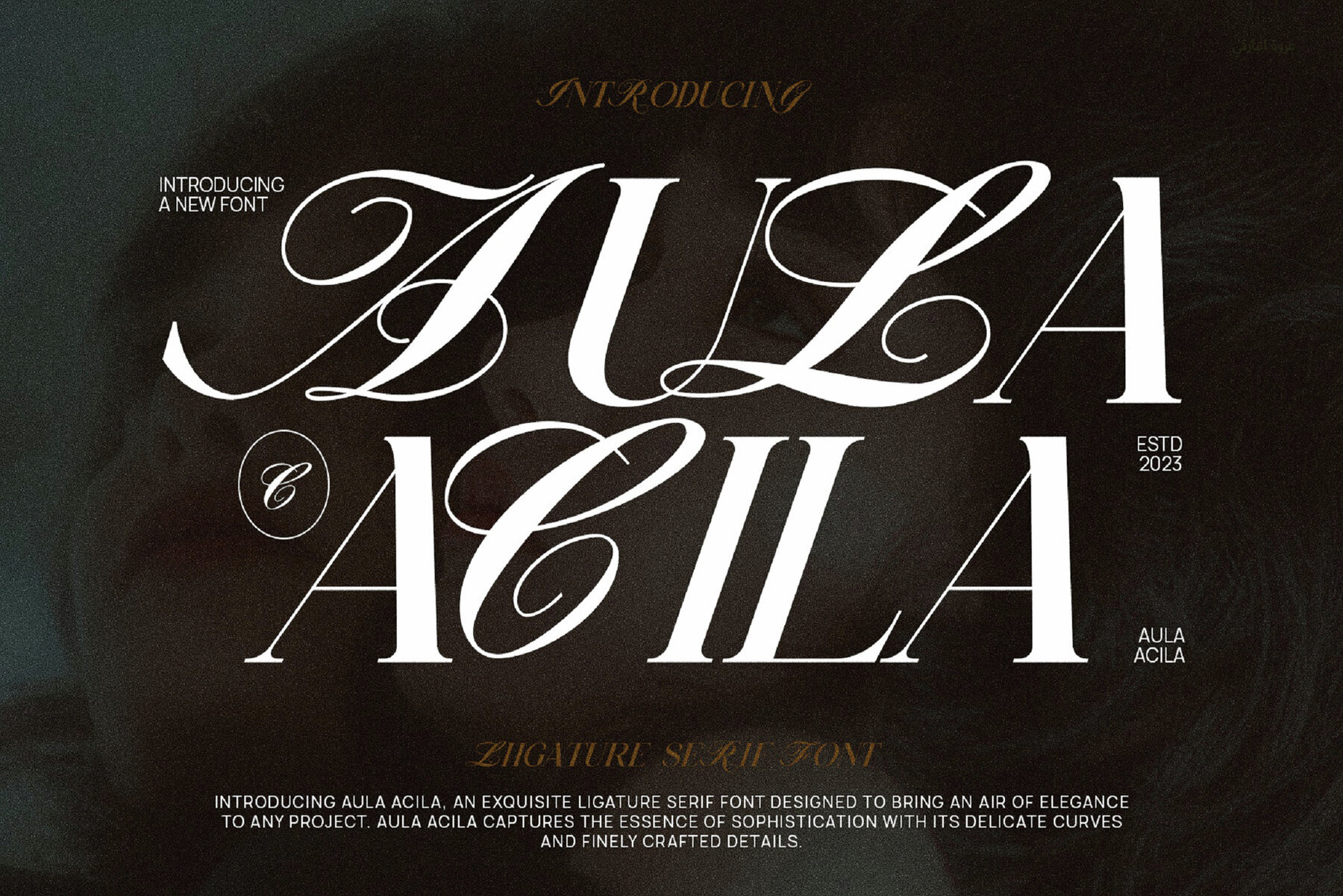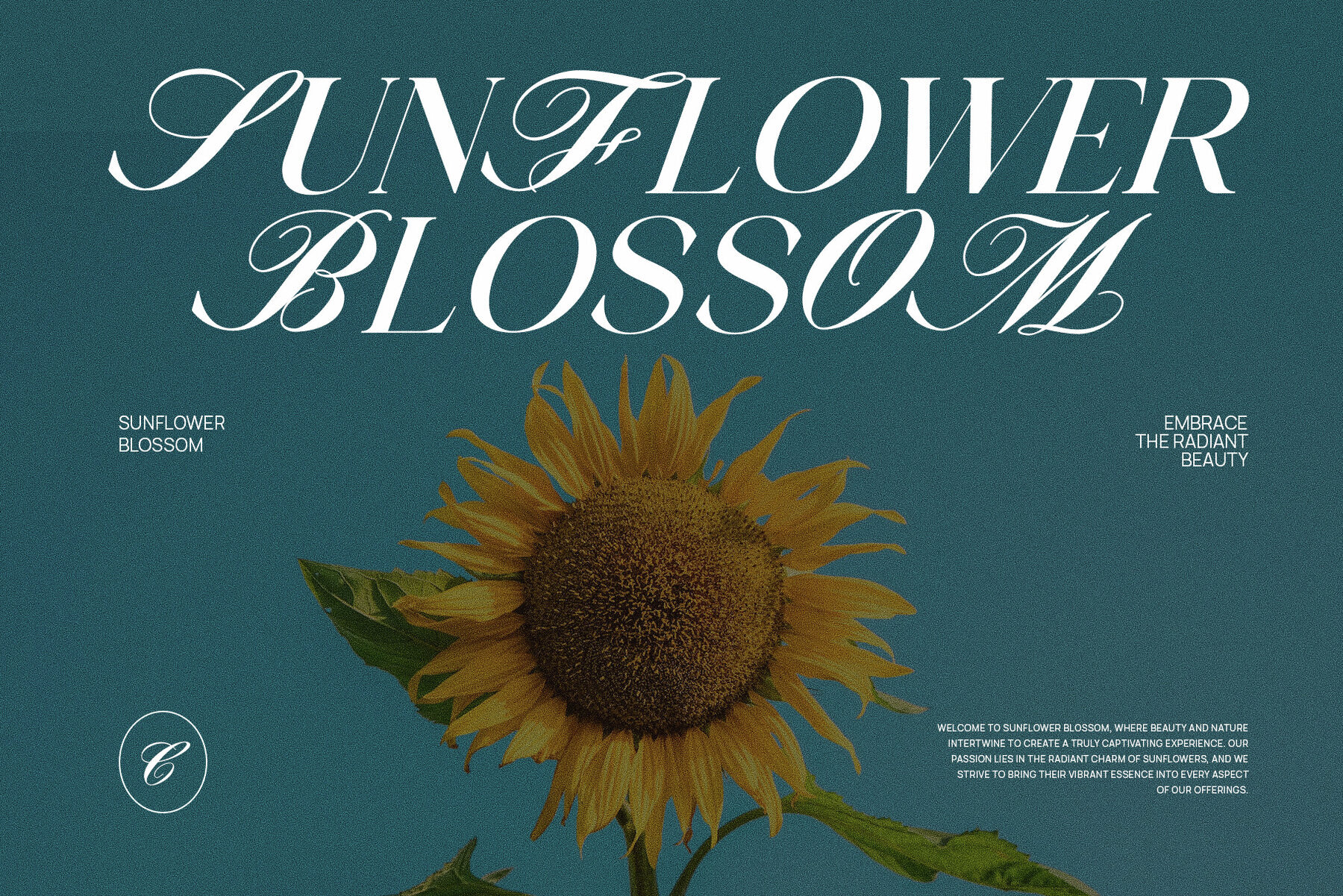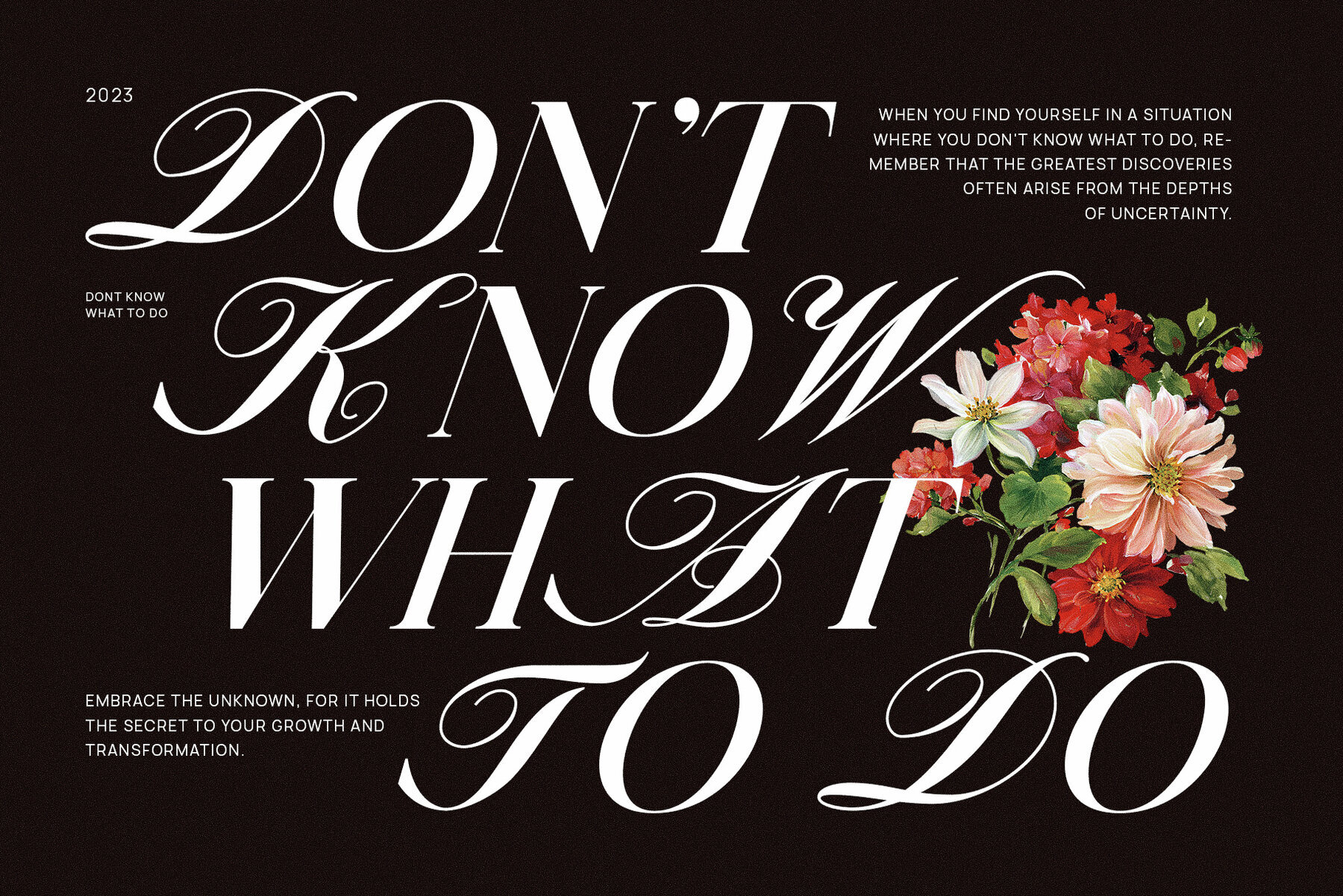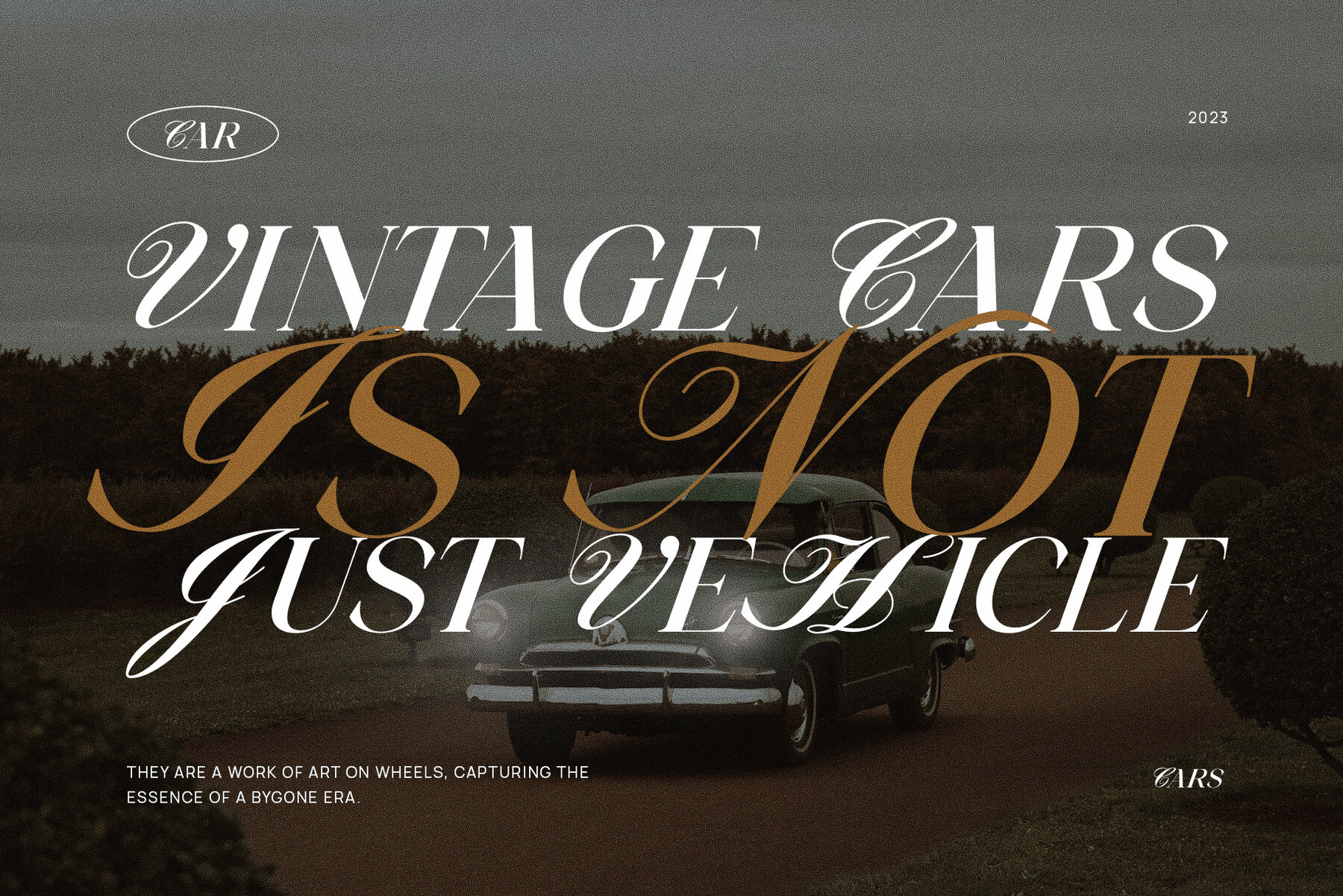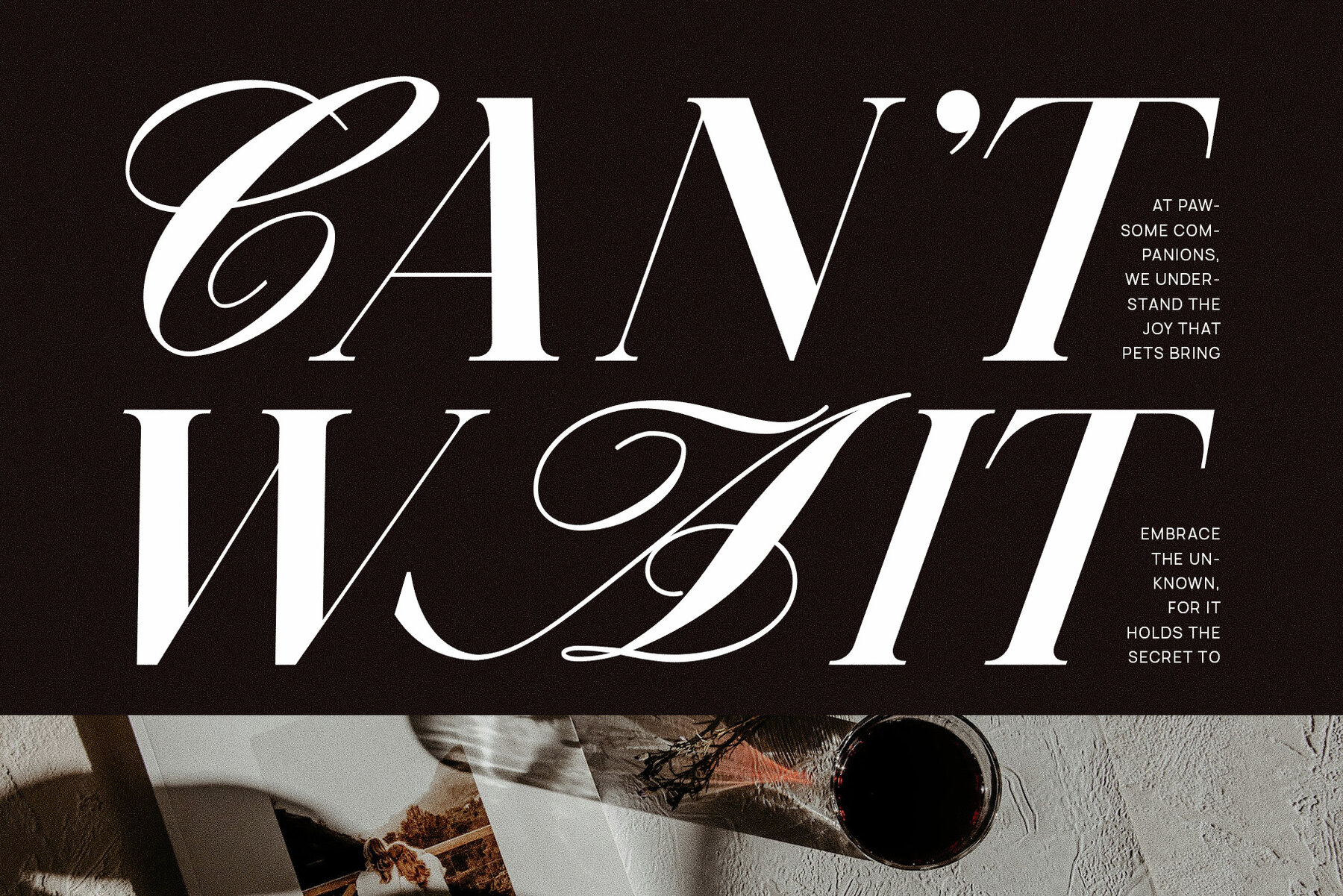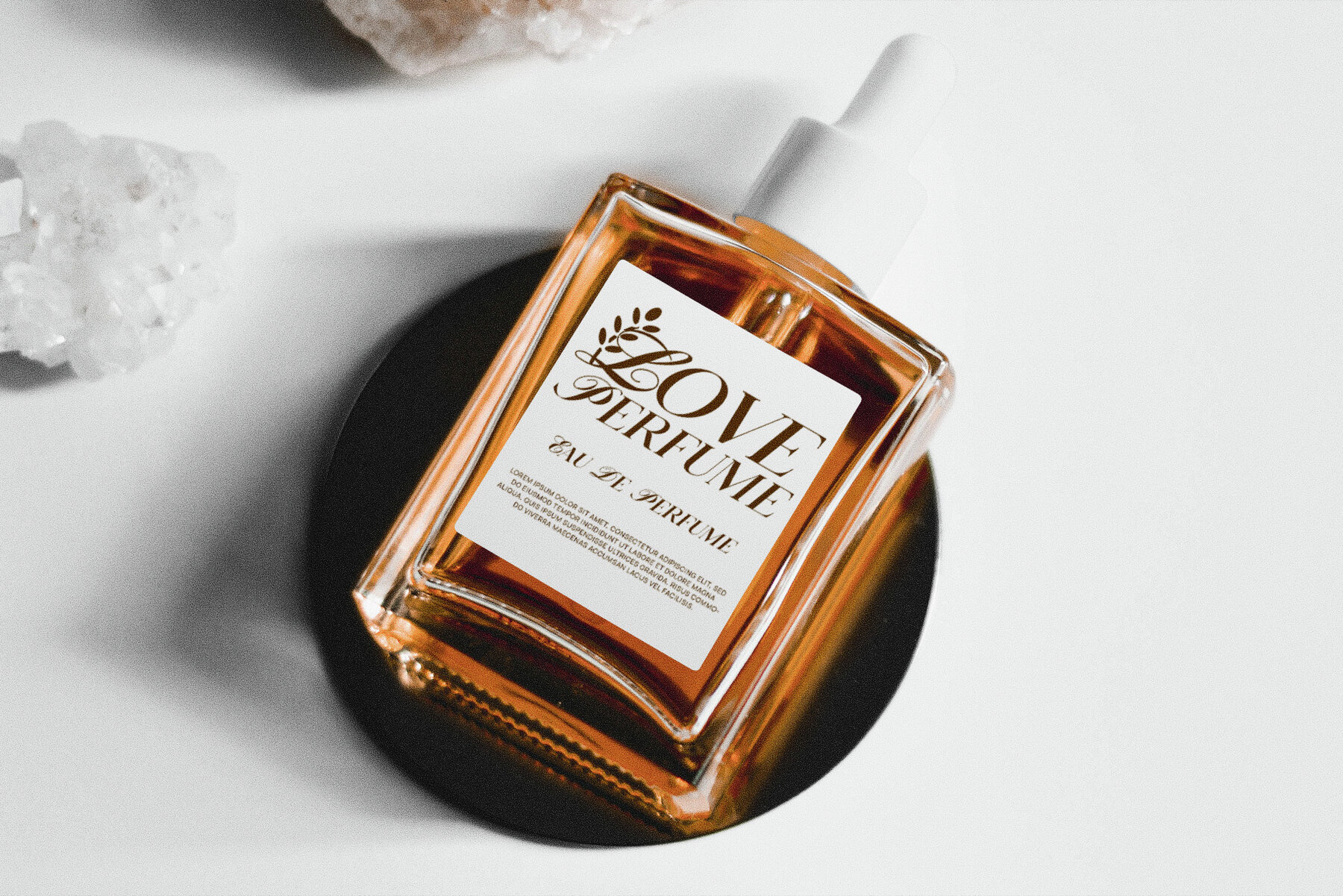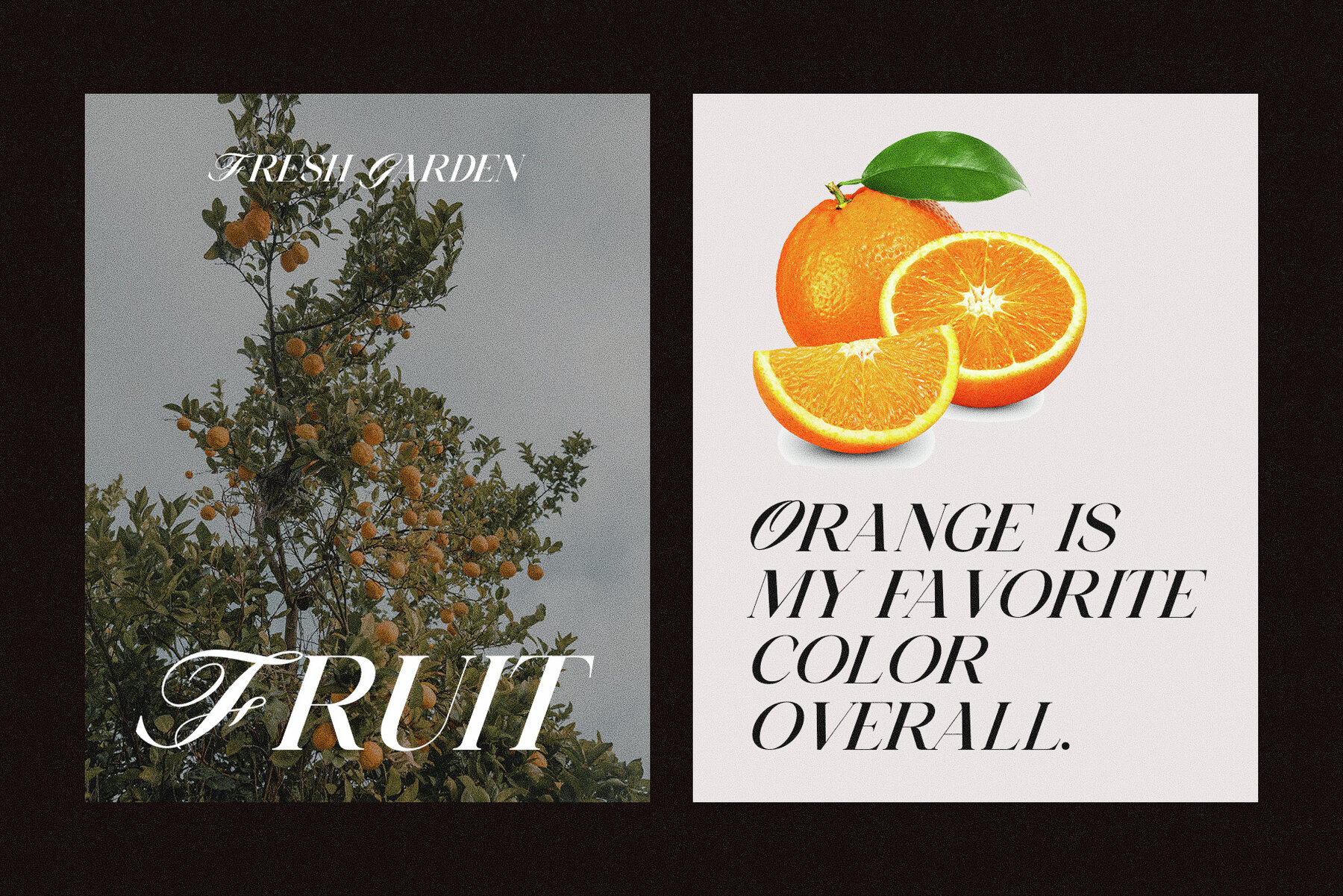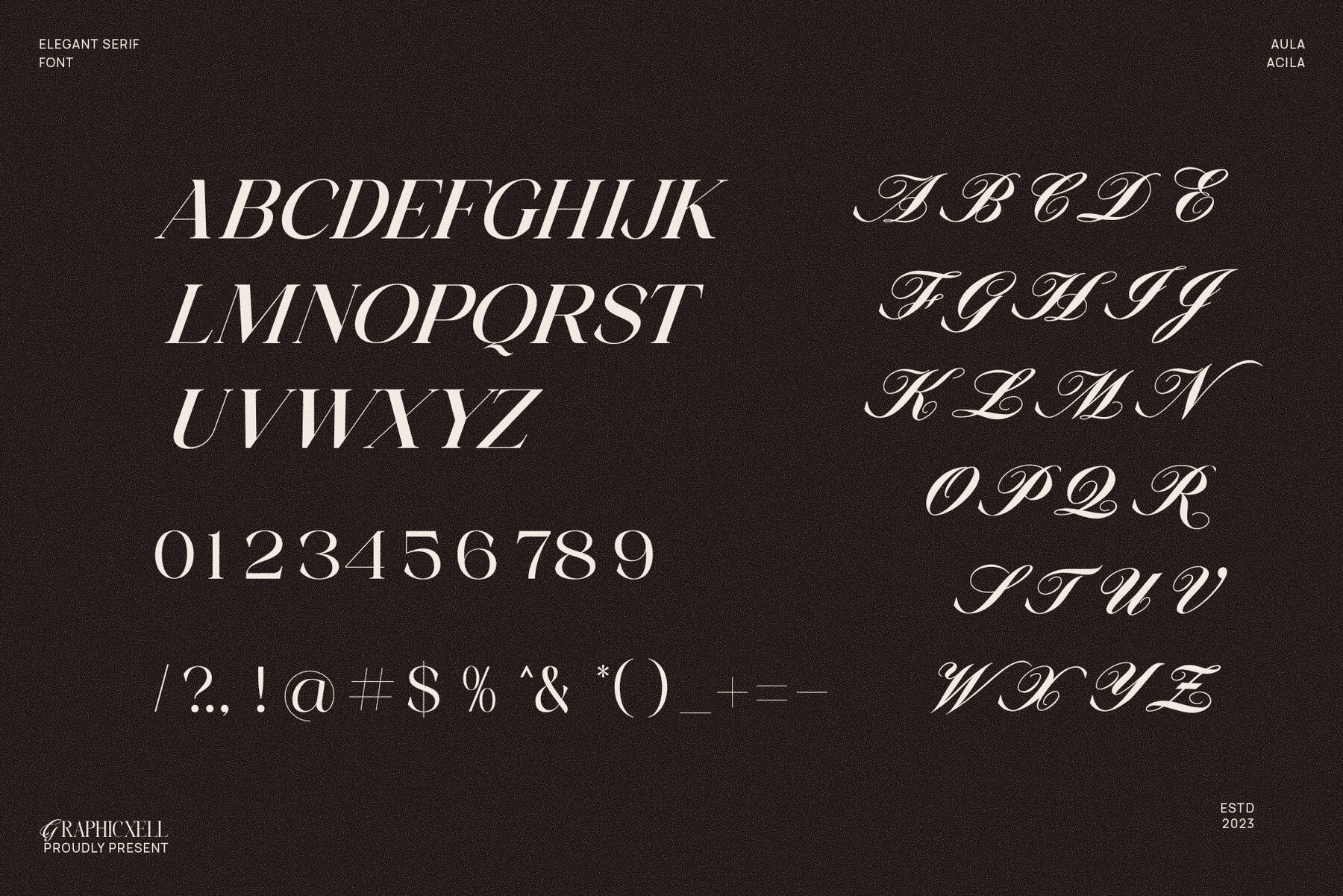
Aula Acila Font
Aula Acila Regular
Aula Acila is a distinctive and elegant serif font perfect for branding and logo designs. This refined typeface combines elegance with a modern flair, making it suitable for a variety of projects. Whether it's for branding, logos, wedding designs, social media posts, advertisements, product packaging, labels, or invitations, Aula Acila delivers high readability and sophisticated aesthetics. Aula Acila is best used with Adobe Illustrator or Adobe Photoshop. This ensures optimal performance and creative flexibility. If you have any questions or need assistance, please feel free to reach out. We're happy to help!Aula Acila: Elegant Typeface for Branding and Logos